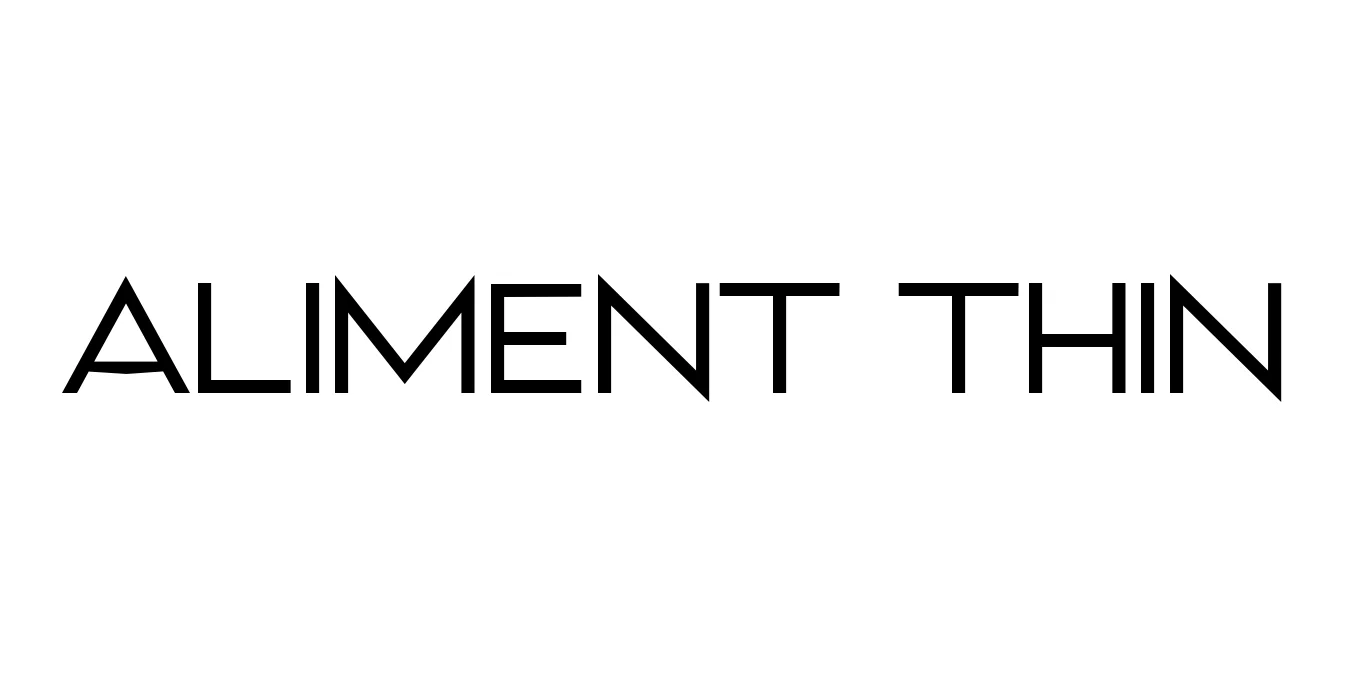
Aliment Thin
Designed by Ingo Lab
| Similar Fonts | Futura, Gotham, Montserrat, Lato |
Aliment Thin is a sophisticated geometric sans-serif typeface created by Ingo Lab. This specific weight is part of a larger family designed to embody modern minimalism and structural clarity. Its thin, precise strokes create a sense of elegance and luxury, making it a favorite among graphic designers who aim for a high-end, contemporary look in their visual communication projects.
The construction of the font focuses on geometric balance and airy letterforms. By stripping away any unnecessary flourishes, the designer achieved a typeface that feels both timeless and futuristic. While the family covers a range of weights, the Thin variant is particularly effective for large-scale display use, where its delicate proportions can be fully appreciated in both print and digital environments.
Aliment Thin Best Uses
Ideal for luxury fashion labels and minimalist corporate identities.
Perfect for sophisticated headlines and pull-quotes in lifestyle magazines.
Excellent for hero sections and ultra-clean user interfaces.
Great for large-scale outdoor displays and high-contrast posters.